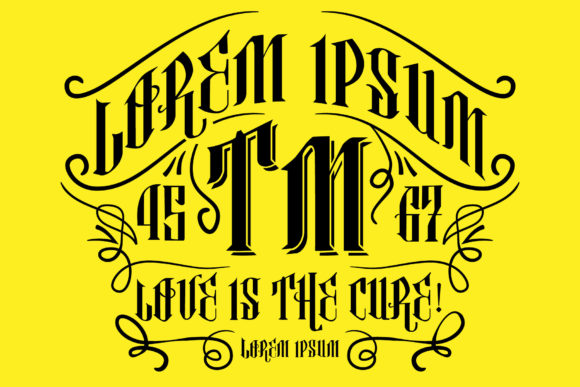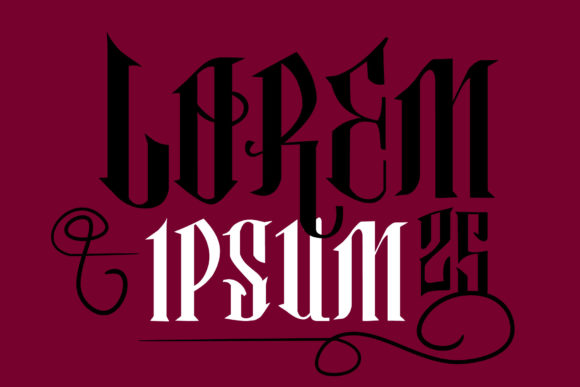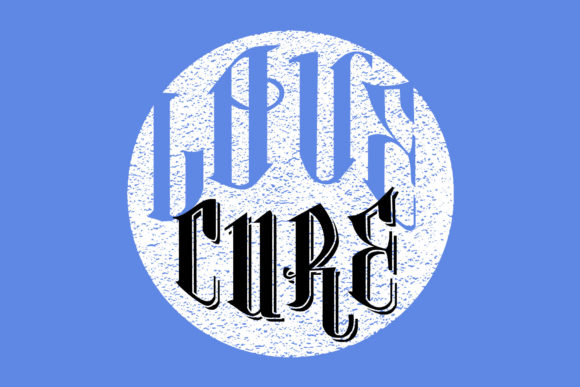
Introducing Classical Hit Font: Elevate Your Designs with a Touch of Vintage Elegance
In the realm of typography, a font can make or break the aesthetic appeal of a design. For those seeking to infuse their creations with a sense of nostalgia and sophistication, the Classical Hit font emerges as a stellar choice. This magical serif font is not just a typeface; it’s a gateway to transforming your visual projects into timeless pieces of art. Whether you’re a designer looking to elevate your Instagram posts or a crafting enthusiast aiming to add a personal touch to your DIY projects, Classical Hit is poised to become your go-to font.
The Essence of Classical Hit Font
Classical Hit is characterized by its vintage and retro style, meticulously crafted to bring a special touch to your designs. The font features elegant serifs that harken back to the classic typography of bygone eras, yet its adaptability and clarity make it suitable for modern applications. This blend of old-world charm and contemporary usability is what sets Classical Hit apart, making it a versatile tool for a wide range of creative endeavors.
One of the standout qualities of the Classical Hit font is its versatility. It’s designed to transcend traditional boundaries, making it an excellent choice for various projects:
- Instagram and Social Media: Stand out in the crowded social media landscape with elegant and eye-catching posts. The Classical Hit font can add a sophisticated flair to your captions, stories, and graphics, making your content more engaging and memorable.
- Calligraphy Scripts: For crafters and DIY enthusiasts, Classical Hit offers a beautiful script option that can elevate handmade cards, invitations, and art pieces. Its flowing lines and classic feel mimic the elegance of traditional calligraphy, perfect for special occasions or personal projects.
- Branding and Marketing: Businesses looking to establish a strong brand identity can benefit from the timeless appeal of Classical Hit. Use it for logos, packaging, or marketing materials to convey a sense of heritage and quality.
Why Choose Classical Hit?
With an abundance of fonts available, what makes Classical Hit a preferable choice for designers and crafters? Here are a few compelling reasons:
- Unique Aesthetic: The font’s vintage and retro vibe is not just nostalgic but also uniquely captivating, allowing your designs to stand out.
- Ease of Use: Despite its complex appearance, Classical Hit is surprisingly user-friendly, making it accessible for both beginners and seasoned designers.
- Cross-Platform Compatibility: The font is designed to perform well across different platforms and devices, ensuring your designs look great everywhere.
Tips for Maximizing the Potential of Classical Hit
To get the most out of this versatile font, consider the following tips:
- Experiment with Sizes: Play around with different font sizes to create visual hierarchy and emphasize key elements in your design.
- Combine with Modern Fonts: Don’t be afraid to pair Classical Hit with more contemporary fonts for a striking contrast that adds depth to your designs.
- Adjust Line Spacing: Optimize readability by adjusting the line spacing according to the context and intended use of your text.
Classical Hit is more than just a font; it’s a design companion that can help you achieve a distinctive look across various projects. Its magical blend of vintage charm and modern usability makes it an indispensable tool for designers and crafters alike. Whether you’re aiming to create stunning social media graphics, beautiful calligraphy, or impactful branding materials, Classical Hit is your key to unlocking a world of creative possibilities. Embrace the elegance and versatility of Classical Hit, and watch your designs transform into true pieces of art.